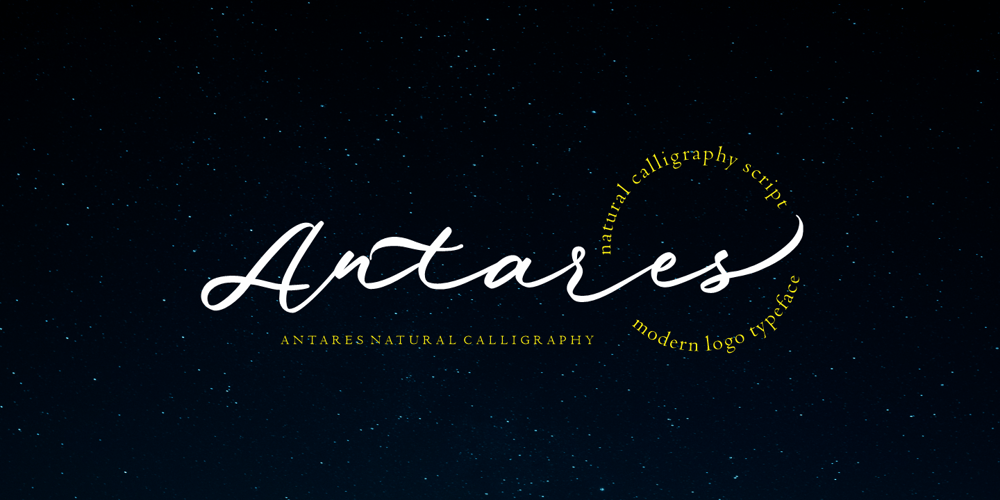
Antares
Antares font
Antares Font Family was designed by Afri Giani and published by Gian Studio. Antares contains 1 styles and family package options. The Antares font is modern handmade font, dinamic and also has beautiful opentype features. The Antares font is great for Branding, Logo Design, Lettering,Logotype, Clothing, Poster, magazine and other design project.Antares Script features OpenType stylistic alternates, ligatures and International support for most Western Languages is included. To enable the OpenType Stylistic alternates, you need a program that supports OpenType features such as Adobe Illustrator CS, Adobe Indesign & CorelDraw X6-X7, Microsoft Word 2010 or later versions.How to access all alternative characters using Adobe Illustrator:https://www.youtube.com/watch?v=XzwjMkbB-wQAntares Script is coded with PUA Unicode, which allows full access to all the extra characters without having special designing software. Mac users can use Font Book , and Windows users can use Character Map to view and copy any of the extra characters to paste into your favourite text editor/app.How to access all alternative characters, using Windows Character Map with Photoshop:https://www.youtube.com/watch?v=Go9vacoYmBwIf you need help or have any questions, please let me know. I’m happy to help 🙂 Thanks